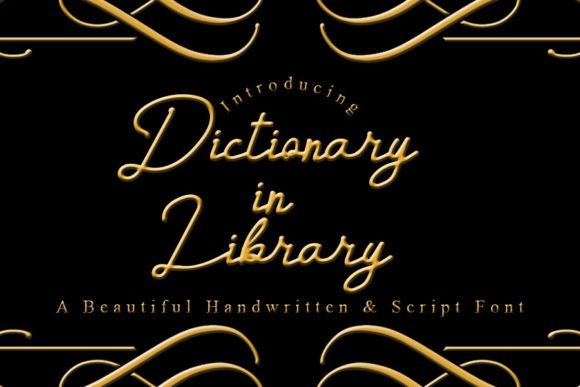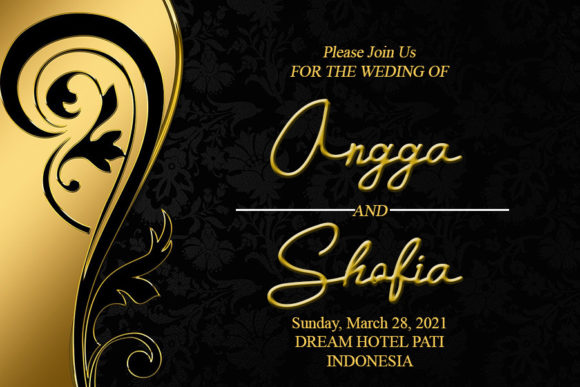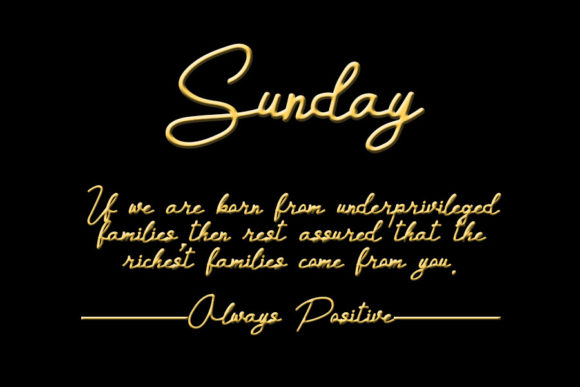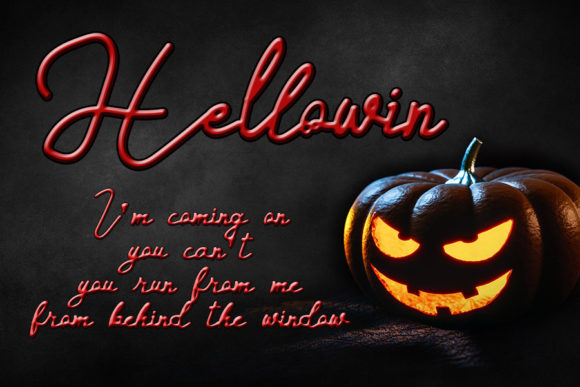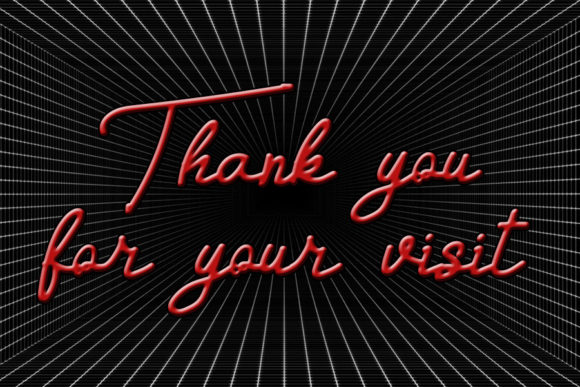
Dictionary in Library Font
About Dictionary in Library Font
Dictionary in Library is a lovely and timeless handwritten font. It is the best choice for creating eye catching logos, branding and quotes. Every letter has a unique and beautiful touch, which will make your design come alive!